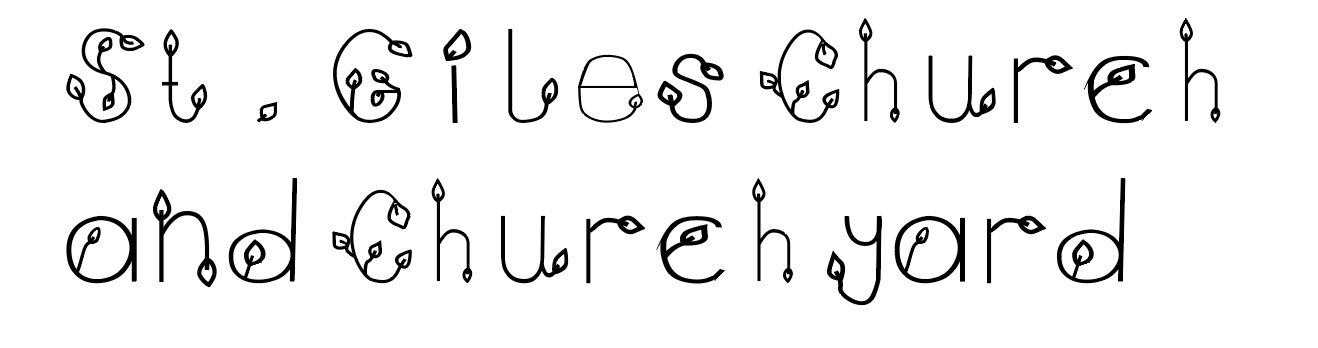
Inspired by the nature surrounding St. Giles Church and included in the churchyard, this font adds a whimsy and creative twist to the usually structured and rigid architecture of the building. the branches in the churchyard twist to provide an enchanting atmosphere before stepping into the Church. The Churchyard is also home to many squirrels that see it is as a habitat and safe place from the bustling streets of London.